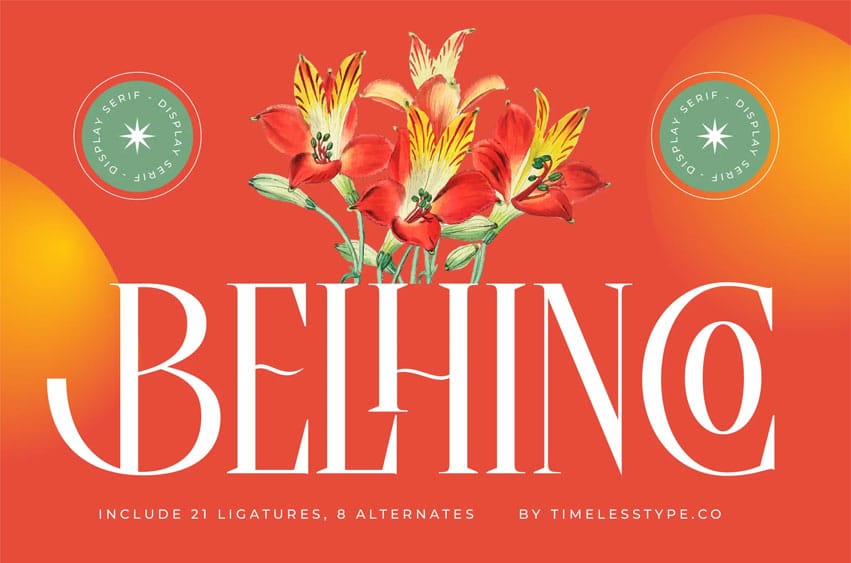
Belhinco Font is an elegant modern display serif font defined by tall proportions, refined contrast, and graceful sculpted curves. Inspired by luxury editorial design and botanical illustration aesthetics, this typeface brings a sophisticated, high-look perfect for magazines, branding, perfume packaging, wedding invitations, and artistic logo design. Its slender serifs and polished letterforms create a timeless visual identity with a bold yet elegant character.
Featuring 21 ligatures and 8 alternates, Belhino gives designers versatile tools to craft expressive headlines, refined monograms, decorative layouts, and premium typographic compositions. Its contemporary elegance, classic charm, and clean silhouette make it an excellent choice for projects that demand style, luxury, and refined visual .